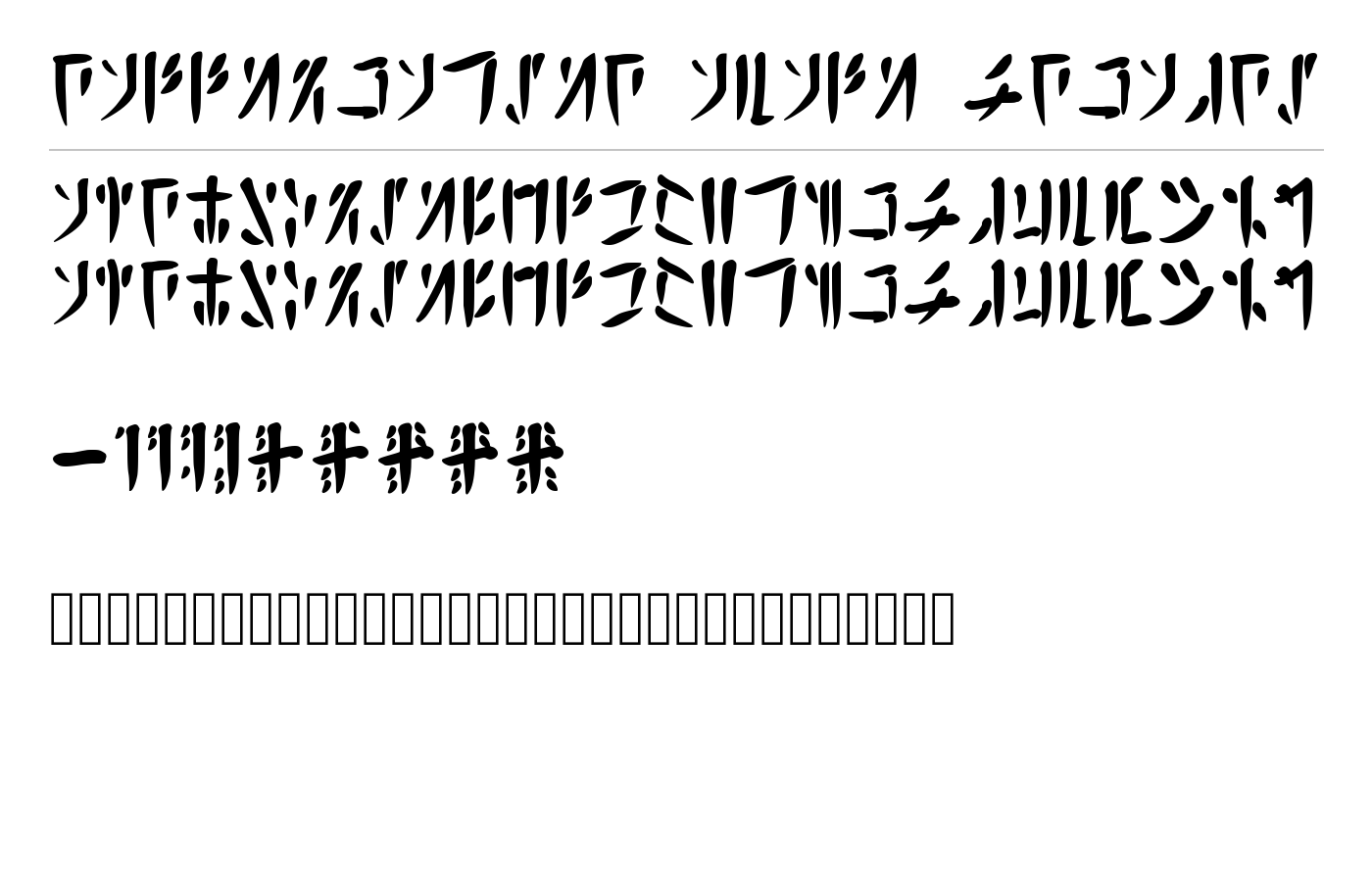
Calligraphic Avali Scratch is a unique, bold handwritten font with a striking calligraphic style that features sharp, dynamic strokes and an expressive, slightly rough texture. Its distinct shapes and artistic flair make it perfect for creative projects, branding, and headlines where a bold, unconventional look is desired. This font works well in designs seeking a strong visual impact with a handcrafted, edgy personality.
Calligraphic Avali Scratch Font
About Calligraphic Avali Scratch Font